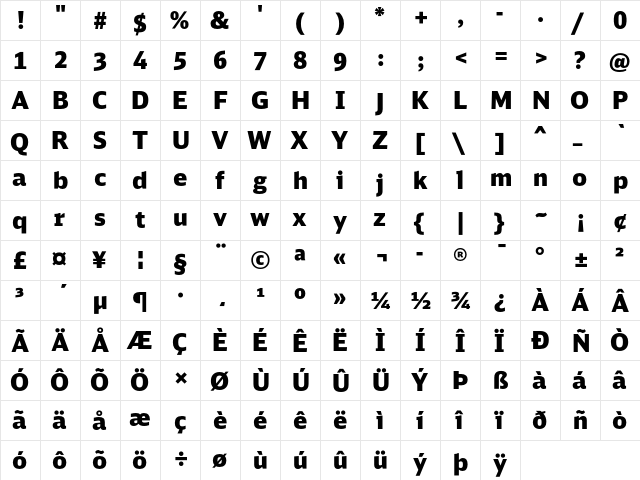
DB Sans Black
Design Context for DB Sans Typeface
DB Sans offers clean, dependable letterforms without strong stylistic allegiance, making it a practical choice for designers who need flexibility.